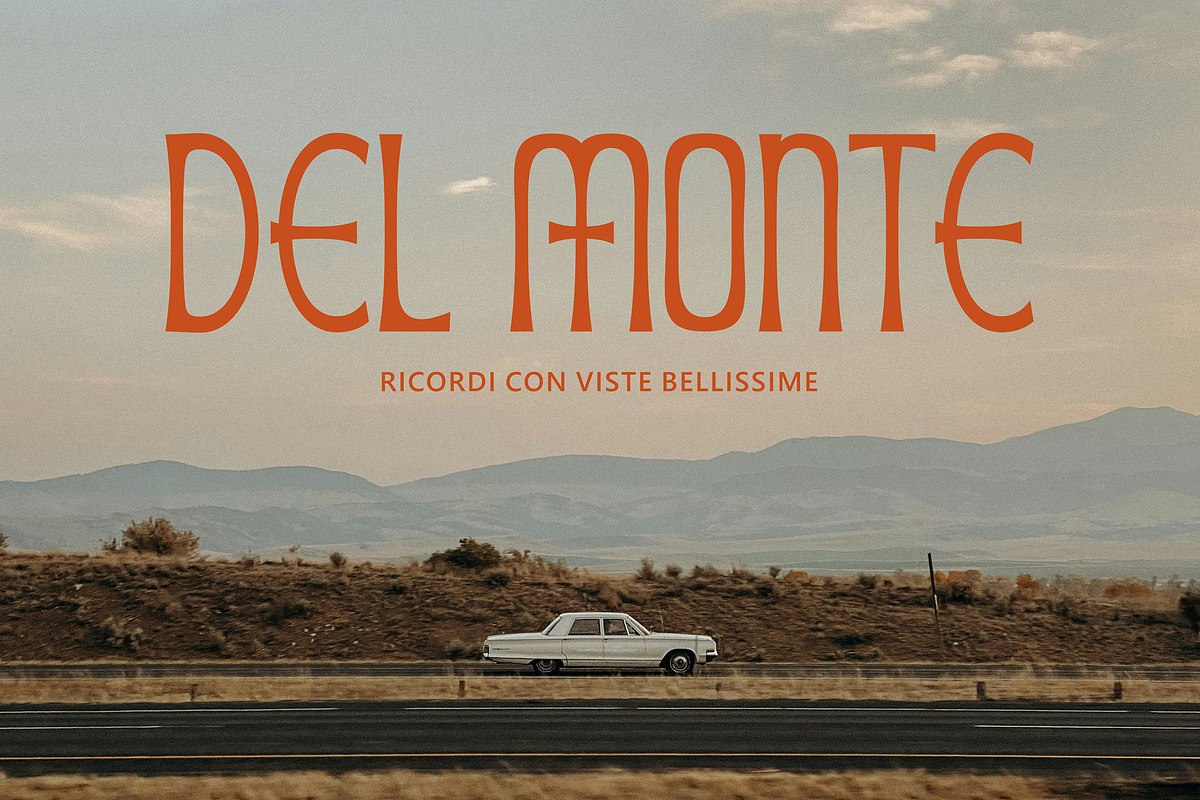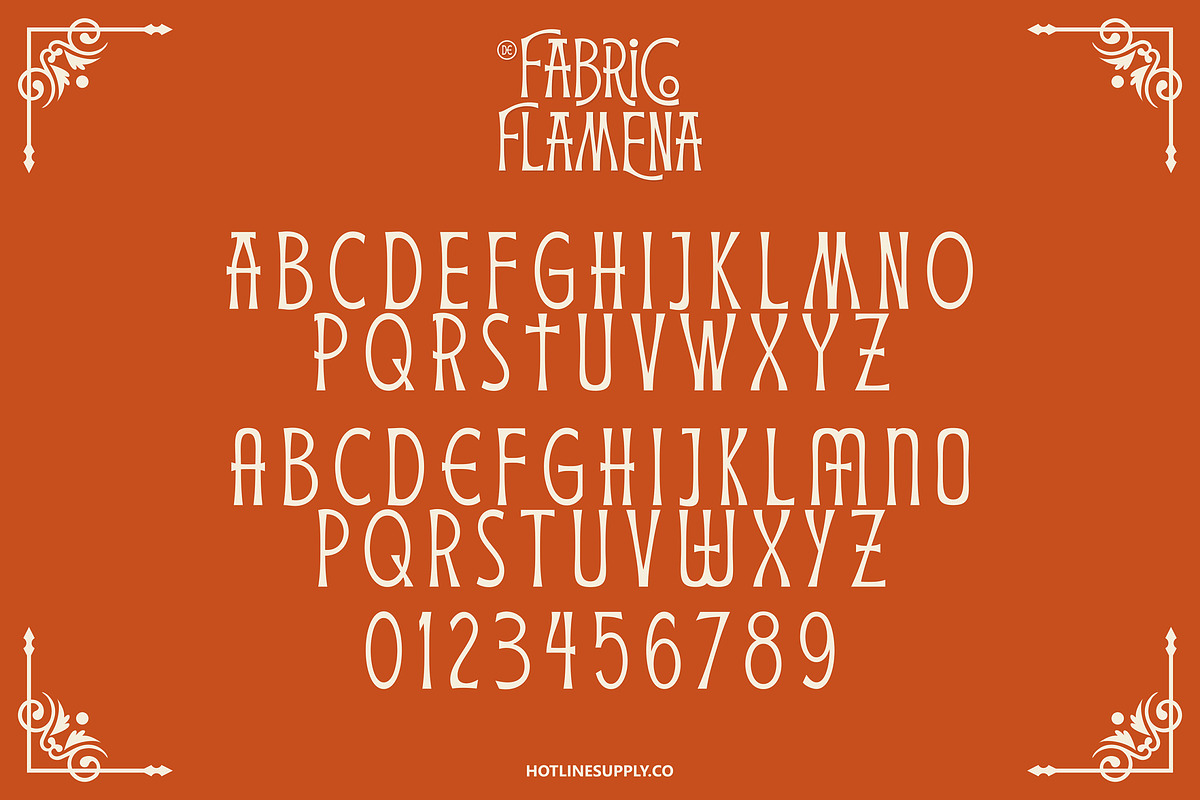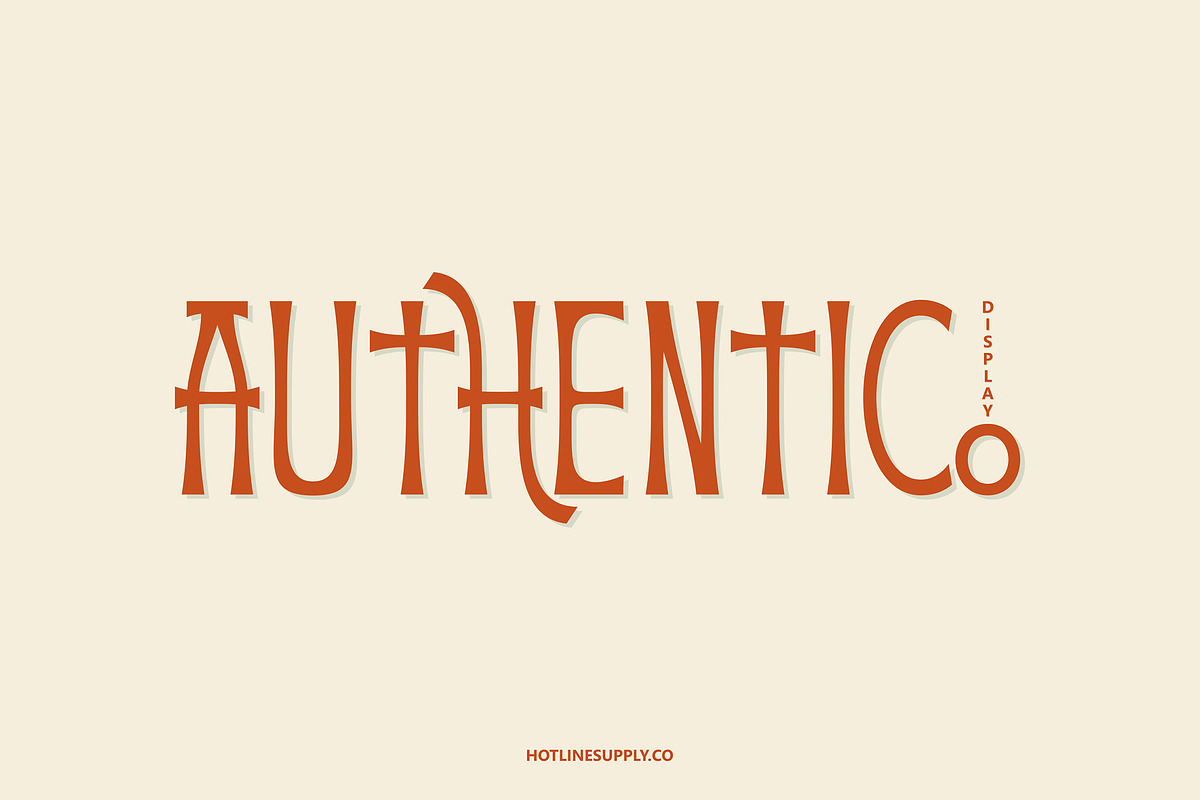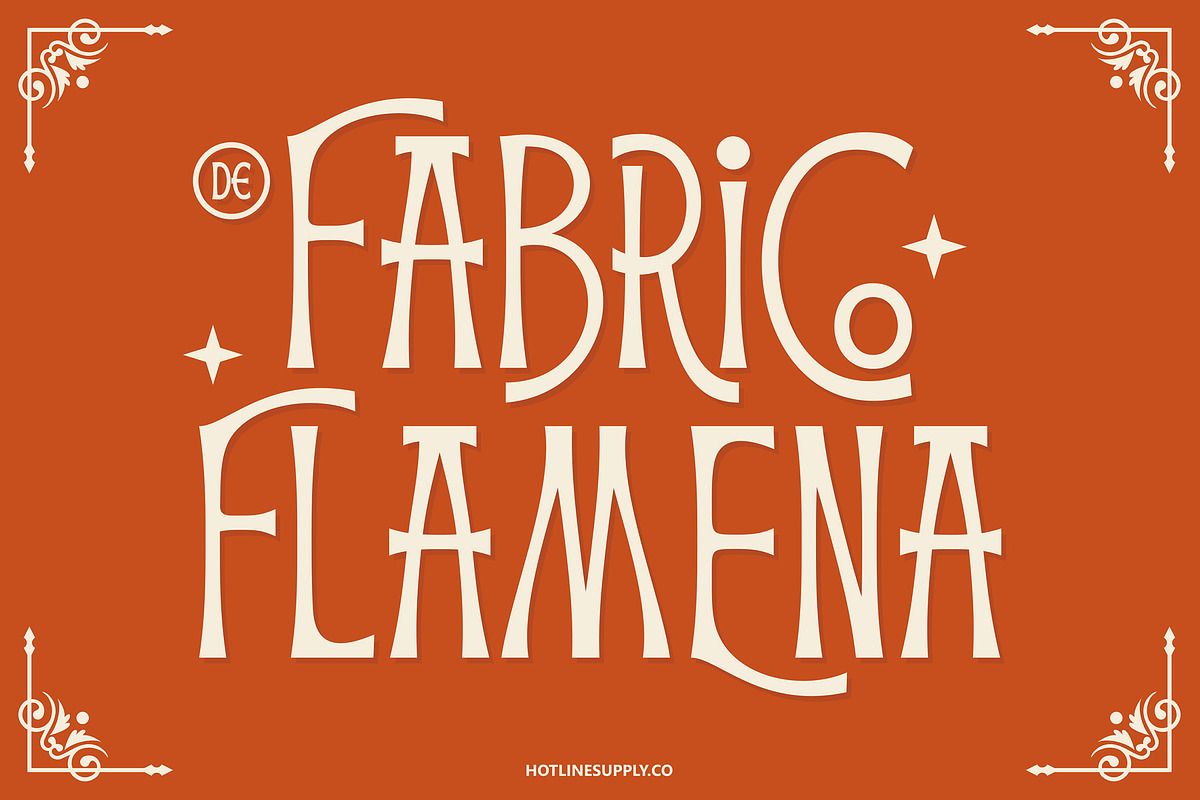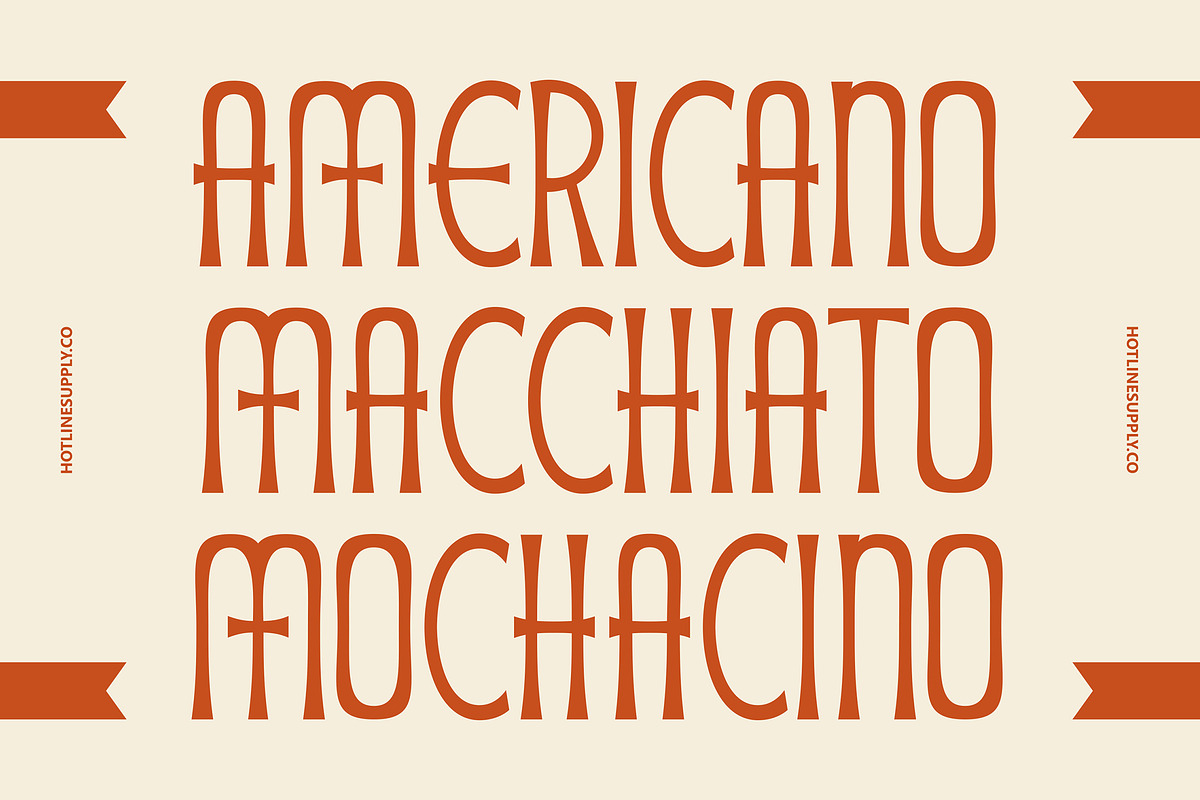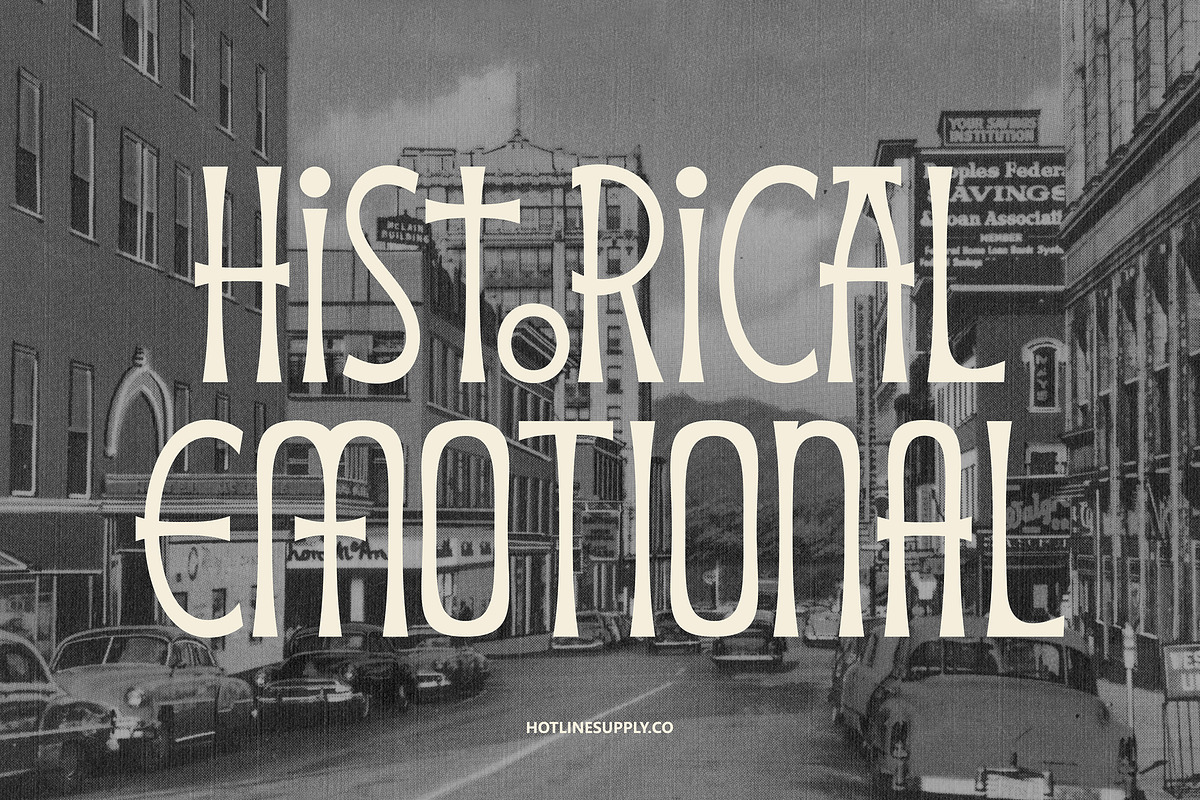
De Fabrico Flamena
De Fabrico Flamena is new font unic style , elegant and retro feel character set. To create the beautiful combination, just mix the uppercase and lowercase then mix with the alternative glyphs. De Fabrico Flamena font includes a full set of capital and lowercase letters, as well as multi-lingual support, currency figures, numerals, punctuation & some extra glyphs.
De Fabrico Flamena Font equipped with :
- Character Set A-Z
- Stylistic alternates
De Fabrico Flamena font is suitable font for many creative products Design and easy use.